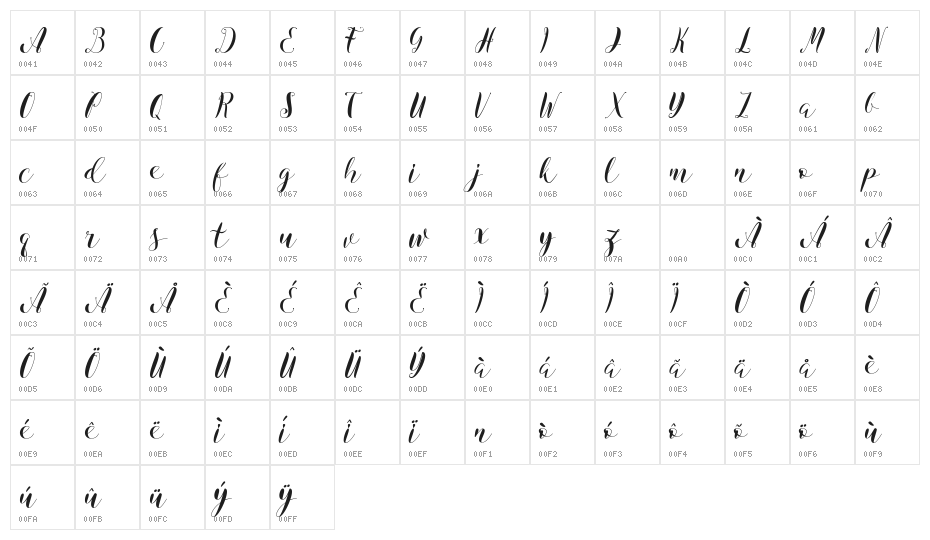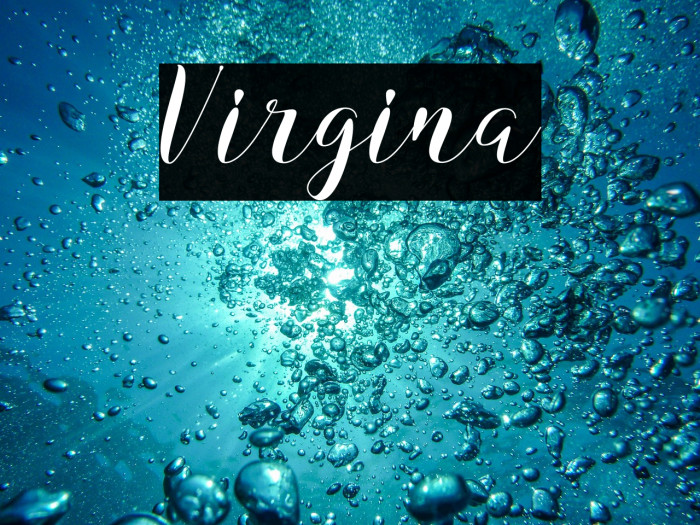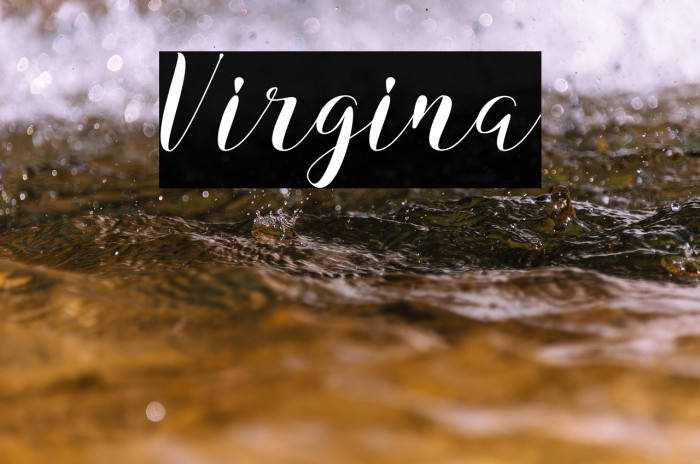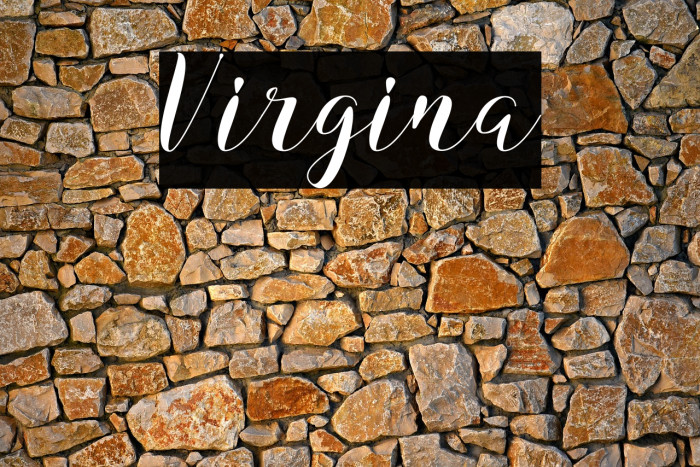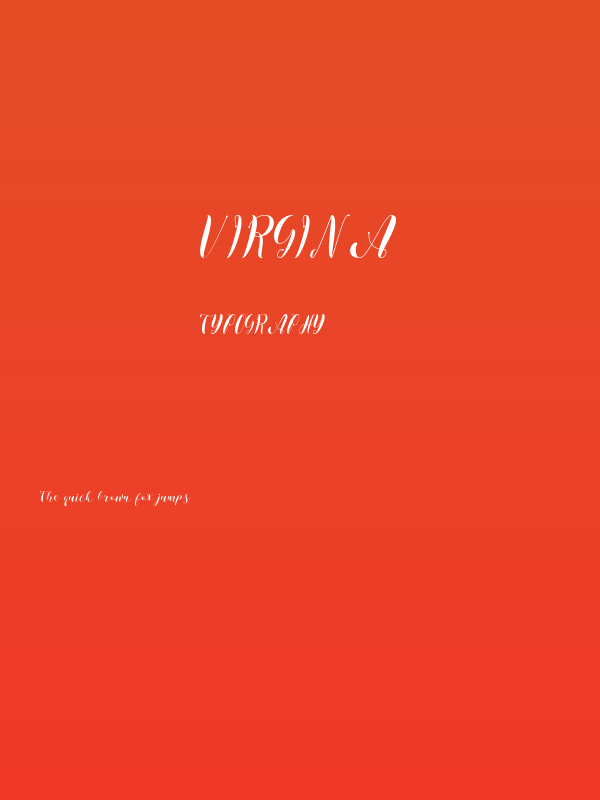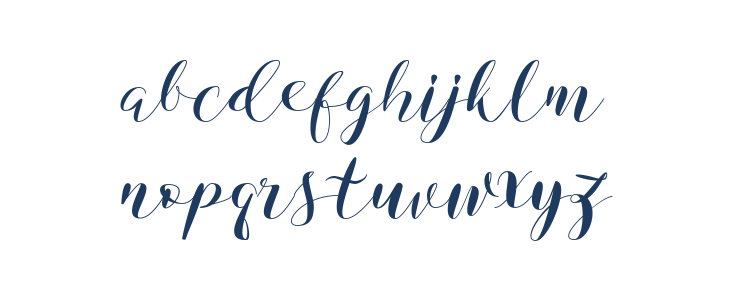
Virgina Font
Virgina Description
This font exudes elegance and sophistication with its flowing, cursive style. Each letter is crafted with delicate swirls and loops, giving it a graceful and artistic appearance. The uppercase letters are particularly ornate, featuring intricate flourishes that add a touch of luxury. The lowercase letters maintain a consistent style, with smooth curves and a slightly slanted orientation. The numbers and special characters are designed to match the overall aesthetic, ensuring a cohesive look across all text. This font is perfect for projects that require a touch of class and creativity.
| Proposed Projects | Ideal for wedding invitations, luxury branding, greeting cards, and elegant logos. |